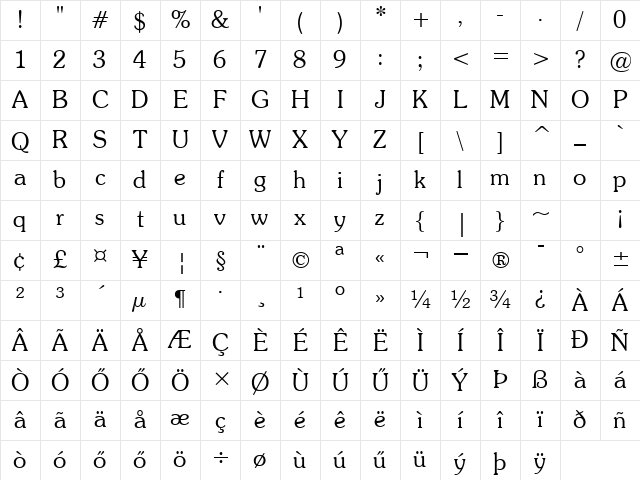
H_Souvenir BT Light
H_Souvenir BT Family
Design Context for H_Souvenir BT
H_Souvenir BT is a composed and adaptable typeface that performs quietly and consistently across a wide range of design contexts. Its slender proportions lend an understated elegance to any composition.